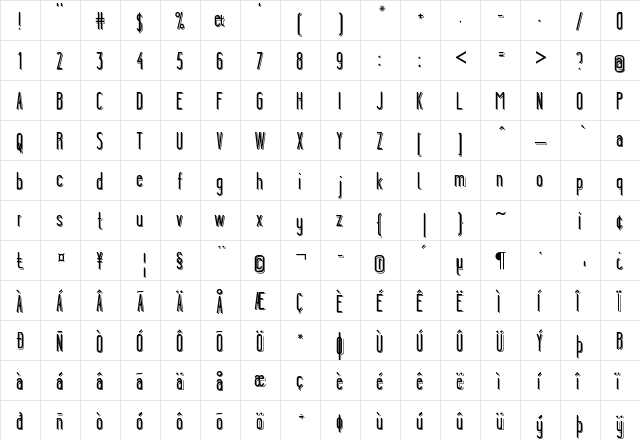
Ygraine Shadow
| Designer | Type Sailor - David Espinosa |
Design Context for Ygraine Typeface
Ygraine is built around its visual character rather than neutral utility — its distinctive forms are designed to make an impression at display sizes.
Font Pairing: Pair with a clean neutral sans-serif for body copy to let Ygraine's character lead without overwhelming the composition.
Pro Tip: Use Ygraine exclusively at display sizes — it was designed to be seen, not read at length. Let a neutral companion handle body copy.